Cutesy fonts are usually associated with two styles: one is a bit inflated and bubbly, while the other is softer and rounder. Inflated bubble fonts may have rounded corners but they also add puffiness, softening the letterforms even more.
In contrast, the rounded style of a font is just that—rounded. But not all of them look the same. For example, a rounded font can have closed shapes as opposed to open, or puffy shapes as opposed to thin. The difference between the two might be subtle, especially when considering how you use these cutesy fonts. You could argue that both styles are cute, but each serve different needs and applications.
Best uses for bubble fonts
Bubble-style fonts work best for short, playful uses. Think about stickers, posters, birthday graphics and social media images (especially packaging). While there’s no hard rule on what to use, it’s important to remember that some cutesy fonts will work better than others. Here are a few examples of inflated bubble-style fonts that we found to be suitable for playful projects:
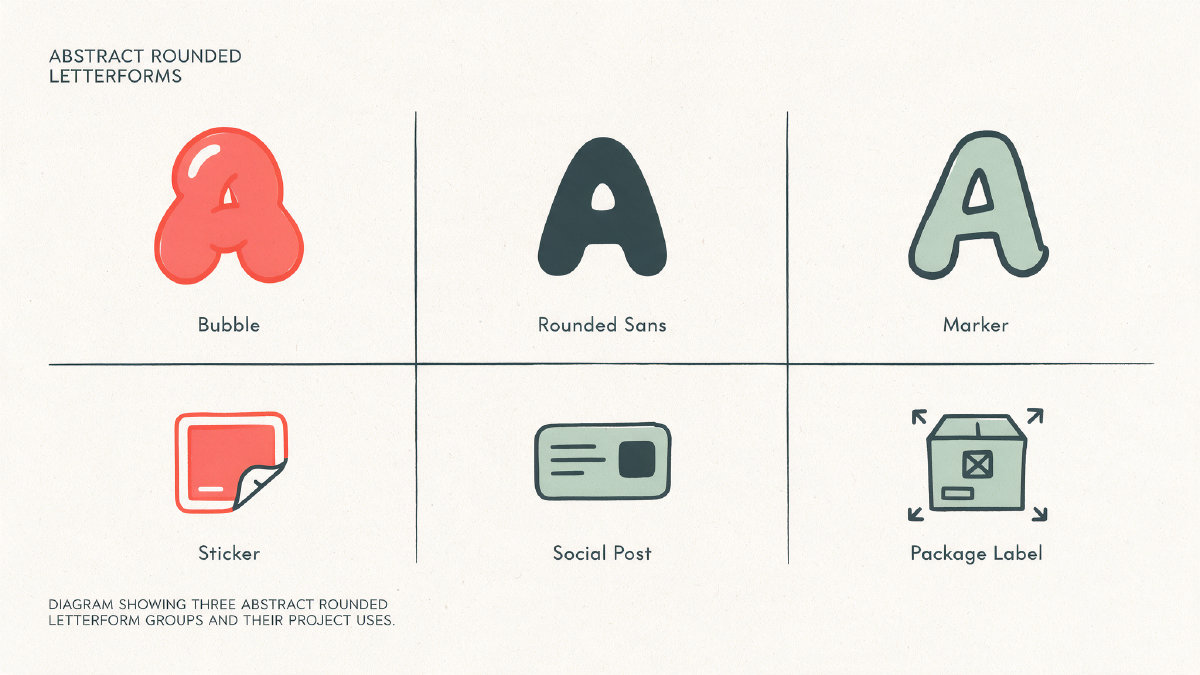
Bubbel Candy Inflate
Bubble Cloud Lobed
For those who want to make their own cutesy letterforms, however, there’s another approach. We’ll describe the original-font route and explain why we prefer one over the other, so that you can pick your own favorite.
Choosing rounded cutesy fonts
FontGenerator offers an extensive library of cutesy fonts. Dreamslug Grotesk and Ion Velvet Grotesk each include 351 glyphs, while the other rounded options range from 95 to 232 glyphs. Some of the fonts offer additional variations, such as a second style. The rounded fonts are the safest choice, since they’re easier to read.
If you don’t feel like creating your own letterforms, then we’ve created several lists that show which of the available Google fonts are the most suitable to use in either category. The rounded fonts, for instance, are suitable for kids’ brands, casual products, interfaces and headlines, with softened corners and round stroke ends. Here are a few examples of the kind of rounded fonts that should appeal to a younger audience:
Dreamslug Grotesk
Ion Velvet Grotesk
Dreamslug Grotesk Rounded
You could say that the main benefit of cutesy fonts is that they allow you to express your personality by simply using text. If you’d rather copy and paste cute Unicode symbols into your social bios or messages, there are many options available. Just keep in mind that this isn’t necessarily a font, per se; it’s more of a copy-paste style. They’re perfect for social captions, messages, or fun “just because” reasons.
It’s easy enough to use cutesy fonts in print, too, especially for packaging. But you might consider the alternative: crafting or cutting your own text out of craft materials. These fonts are useful for brand assets, but they might be limited in their use when designing software.
Creating custom letterforms
The first option is the original, handwritten letterform. This is probably the way to go if you’d rather design your own letterforms. Describe what kind of letters you want, then provide a reference image. Once you get an installable font back from the designer, you’ll want to test out your choices. You can download and save individual characters within Studio, editing them if necessary, before finalizing and downloading the completed project.
There are plenty of fonts to choose from, but it’s important to know when to use each one. Use bubble-style fonts for bold, short and large-format uses. Choose a rounded font if you’re looking for friendly readability. Make sure the font covers all the letters and characters you need to use. Save the cutest Unicode symbols for quick social message purposes.